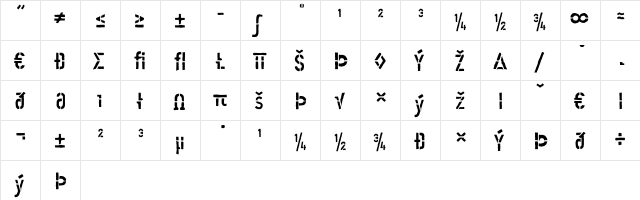
Offline-RoughExpert Regular
Design Context for Offline-RoughExpert Typeface
Offline-RoughExpert embraces imperfection — its rough, textured character adds raw authenticity to designs that want to feel lived-in and unconventional.
Suited to punk-influenced zines, underground music branding, streetwear, and raw, anti-corporate design.
Pro Tip: Pair Offline-RoughExpert with intentionally raw or lo-fi design elements. Fighting against it with overly polished surroundings will undermine its personality.